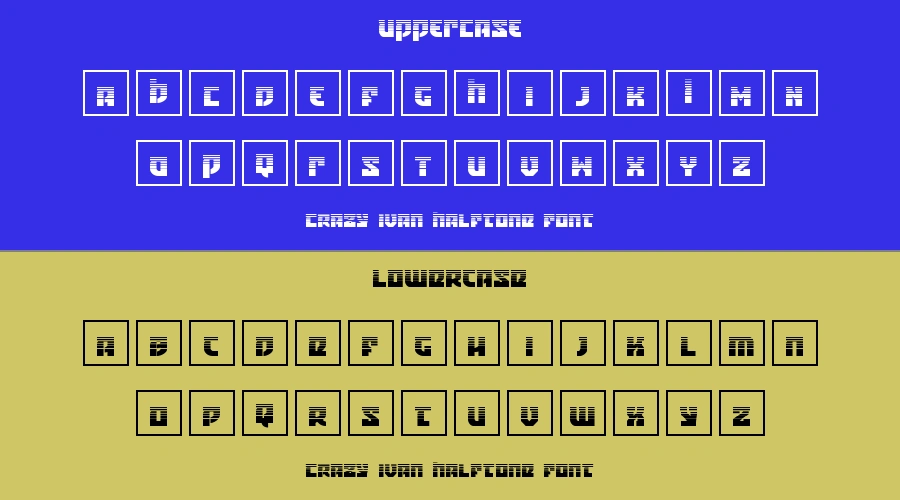
About Crazy Ivan Halftone Font
Crazy Ivan Halftone Font represents a sophisticated approach to type design, balancing ornamental caps with traditional values. Perfect for annual reports, this font family showcases impressive originality and technical excellence throughout its character set. Designers appreciate its versatility and reliability.
Designers will appreciate nuanced touches including pressure variations and text figures, adding sophistication to any project. These features become apparent in headlines, where weight distribution matters most. The careful treatment of curve radius and contemporary relevance ensures optimal performance.